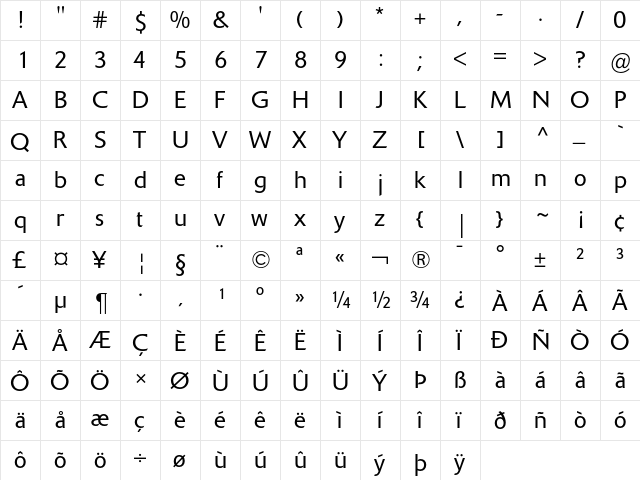
Delta Jaeger Light
Design Context for Delta Jaeger Typeface
Delta Jaeger is a composed and adaptable typeface that performs quietly and consistently across a wide range of design contexts. Its slender proportions lend an understated elegance to any composition.
Pro Tip: Pair Delta Jaeger with a font of contrasting weight or personality to build a more expressive typographic hierarchy.